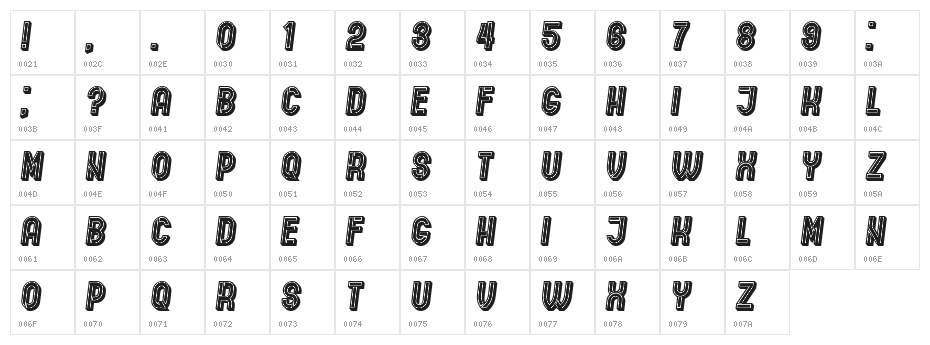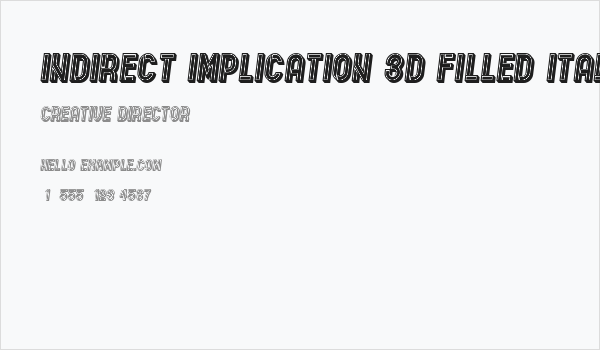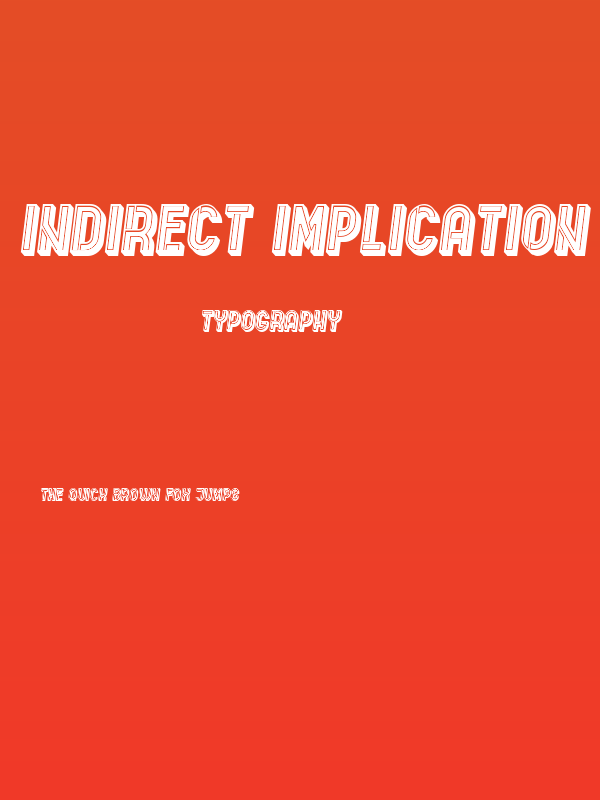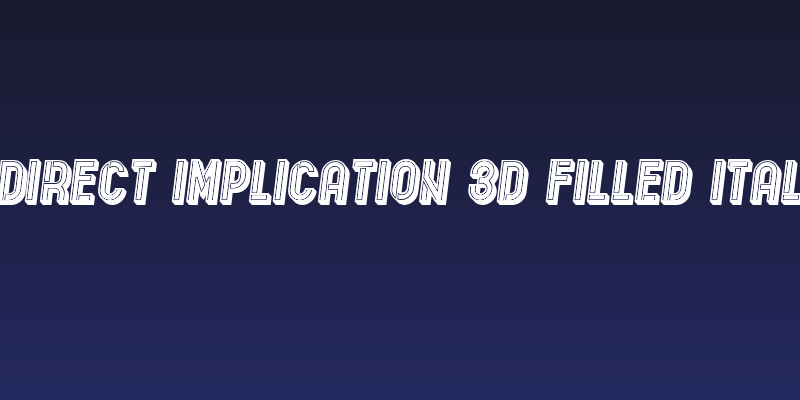
Indirect Implication 3D Filled Italic Font
Indirect Implication 3D Filled Italic Description
This font features a bold, three-dimensional design with a filled appearance, giving it a striking and impactful look. The letters are italicized, adding a dynamic and forward-leaning aspect to the overall style. The 3D effect is achieved through a layered shadow that enhances the depth and visual interest of each character. The font maintains a consistent weight throughout, ensuring readability while still offering a decorative flair. Its boldness and unique style make it suitable for attention-grabbing headlines or creative projects that require a modern and edgy aesthetic.
| Proposed Projects | Ideal for posters, logos, video game graphics, and any project needing a bold, eye-catching typeface. |